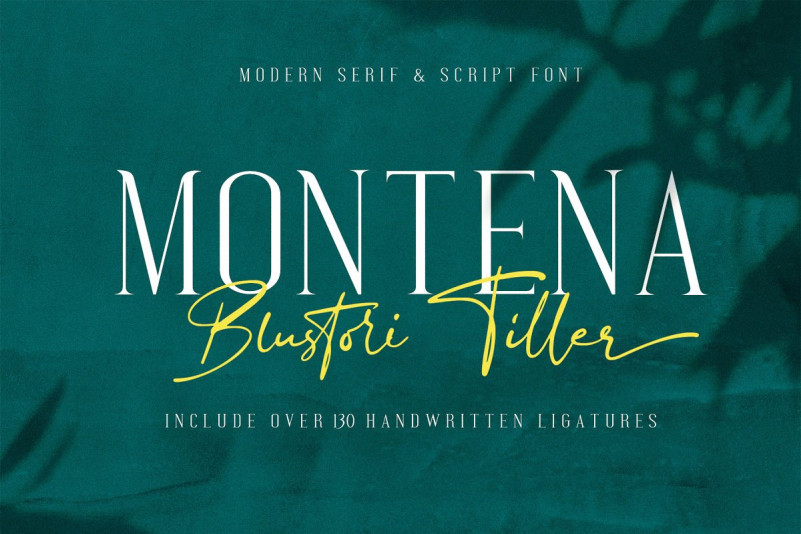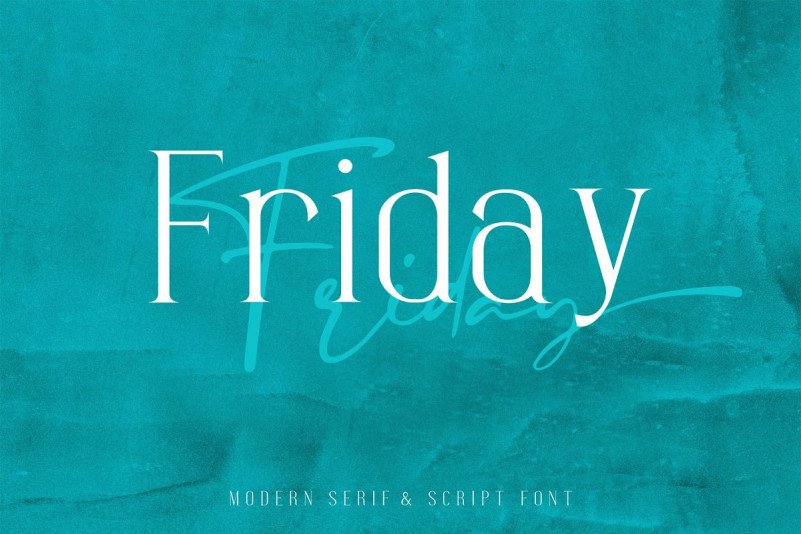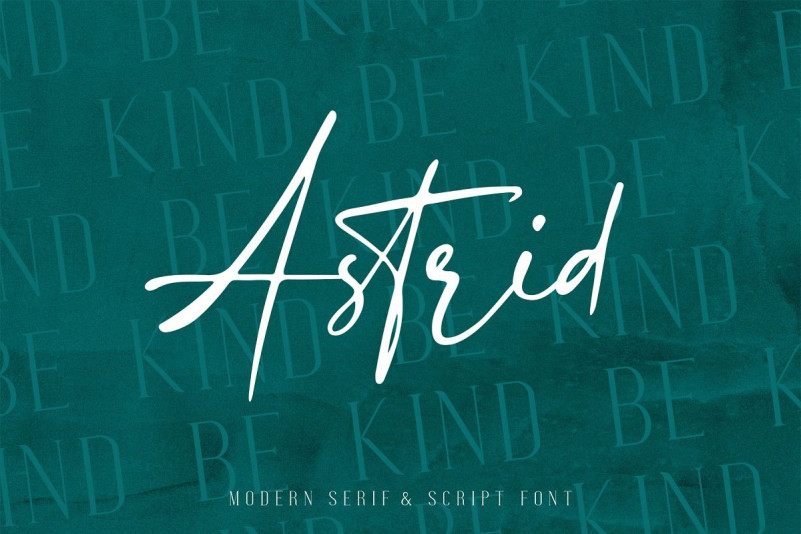
Montena & Blustori Tiller Font
Montena & Blustori Tiller is a beautiful high fashion font duo that makes for gorgeous logos, posters, wedding invitations, blog posts, social media, and more! Montena & Blustori Tiller includes Signature to make everything look totally hand-done, and alternates for each letter.